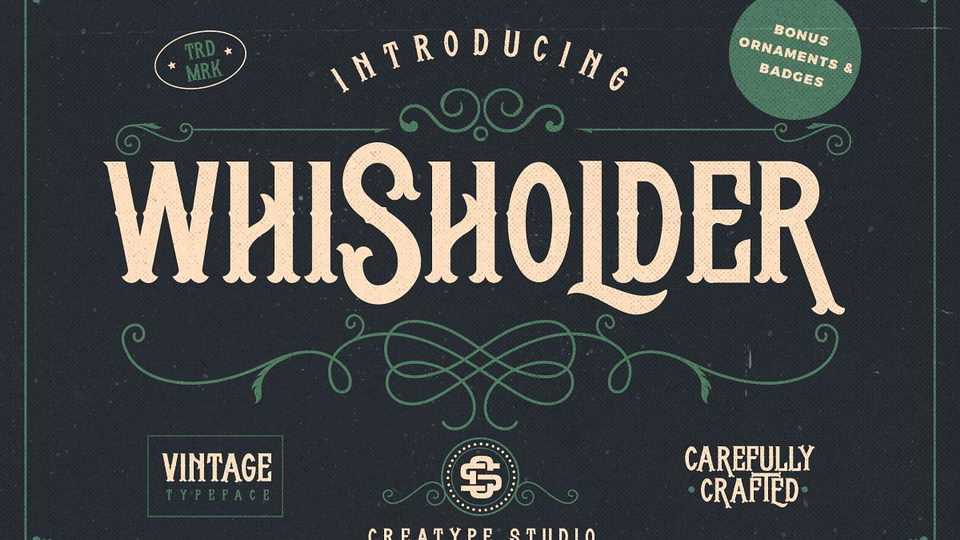
Whisholder is a retro typeface with beautiful decorative ornaments which is inspired by vintage lettering sign and art. Whisholder is perfect for branding, labels, logo and any vintage design.